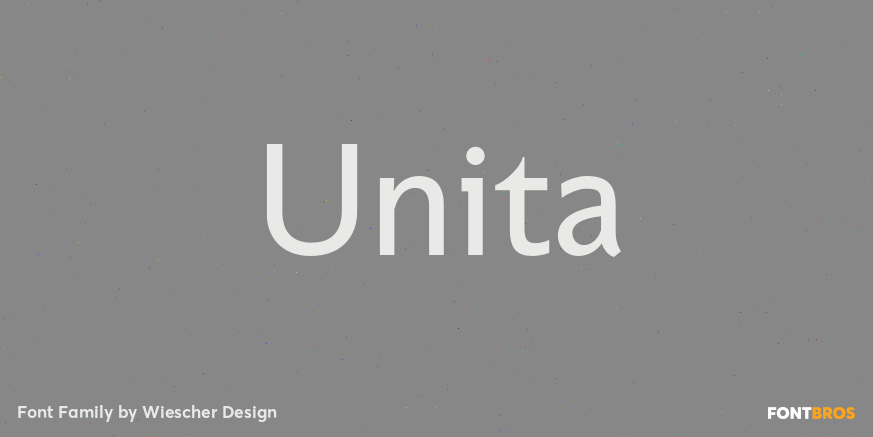
Unita
About Unita
Unita is my version of a classic Grotesk or Sans typeface. I took the best forms of some classic typefaces and combined those forms into my new font, hence the name Unita. I designed six weights in plain and italic, only the extrabold is out of design…